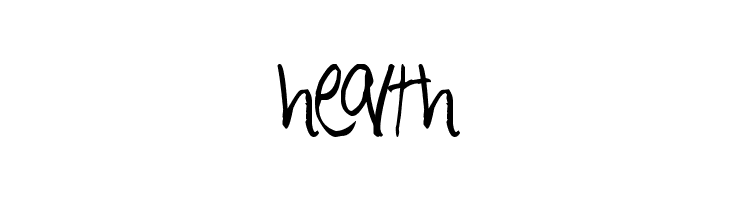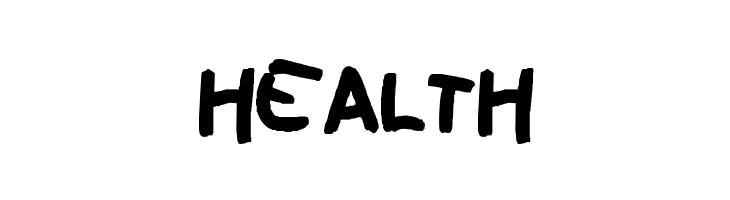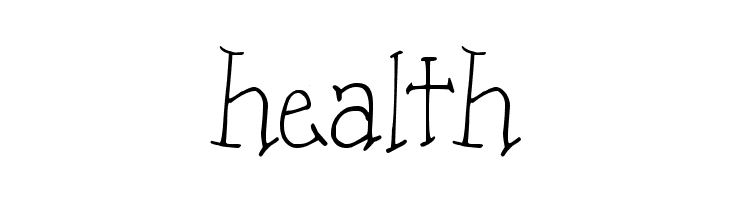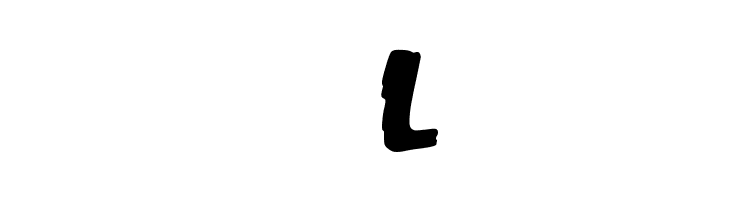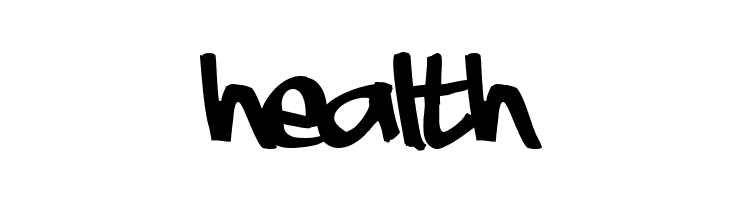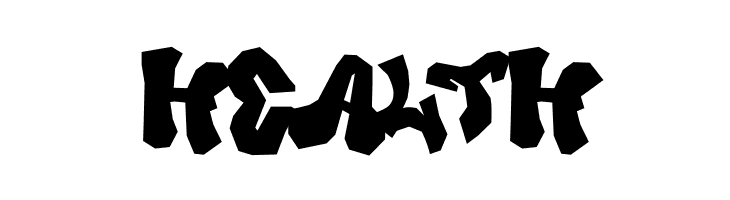
( Fonts by Niels Bonnevie )
A bold, hand-drawn font with a playful and informal style.
( Fonts by www.kimberlygeswein.com - Kimberly Geswein )
A playful, handwritten font with irregular strokes and a whimsical style.
( Fonts by Insanitype )
A playful, energetic font with tall, narrow letters and a slight slant.
( Fonts by Steve Ferrera )
A bold, hand-drawn font with a playful and energetic style.
( Fonts by JW )
A bold, brush-style font with dynamic and expressive strokes.